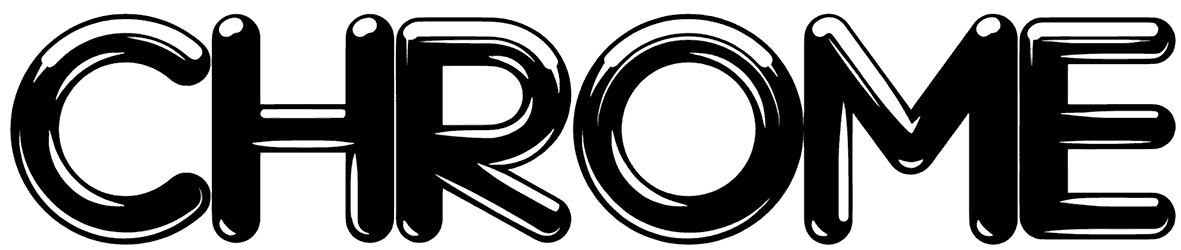
Chrome Font
To be honest, choosing a suitable font for designing eye-grabbing graphic content is not a straightforward task, especially for novice artists, thus we have provided a lovely groovy font like Chrome that comes with two distinctive styles and widen your selection range in the middle of bringing your creative ideas like posters, illustrations, book covers, user interfaces, or digital banners to the real world. This all-caps chiseled font can bring a sense of captivating, approachability, or momentum to your artwork.
‘CHROME Light’ is a free light version of an upcoming font ‘CHROME’. It is available in two variations: ‘Chrome’ and ‘Chrome Black’ with full set of letters, numbers and four punctuation marks. The rest of the glyphs will be available in full version. The font is free and can be used for any type of graphic design – print, web, packaging and more…